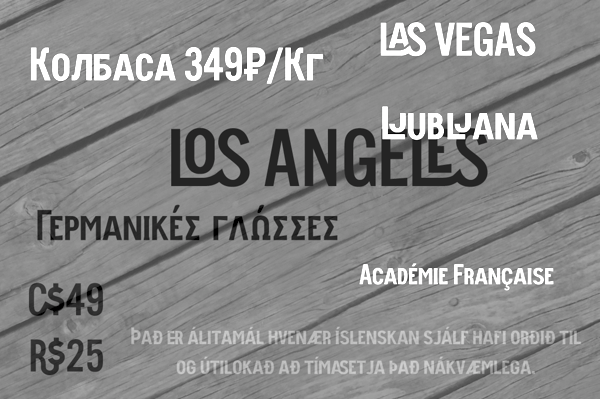
Cyrillic type design
[Image of Yuri Gordon, one of Russia's most important contemporary type designers. This page covers Cyrillic type design in general.]
10four design
[Matt Heximer]
10four design group was founded in 2002 by Sue Lepard and Matt Heximer in Vancouver. Matt Heximer and Sue both graduated from The Emily Carr Institute of Art and Design in 1994. Matt has held senior design and freelance positions in several Vancouver design firms.
Designer of ElDiabloRegular, TechnoOrganic (1996), Swashbuckler-Script (1996), BitchinCamero (1996) at Garagefonts. He also created Halqemeylem Serif (1997) for the Stolo Nation, based on Majoor's Scala. The fonts at 10four design include Adanac (free, clean sans), Bitchin' Camaro (scratchy writing font), Devicq (based on the handwriting of actress Paula Devicq), Downsize, El Diablo (gothic), Lonely Cowboy, Lonely Cowpoke (2010), Mia Pets (dingbats), Swashbuckler, Techno Organic.
In 2007, Matt published the free icon typeface Adanac that contains 62 Canadiana symbols.
In 2014, Heximer created Sonovovitch, a unicase display typeface inspired by the Russian Constructivist movement and Soviet Cold War era propaganda. Although a faux Russian font, Sonovovitch has language support for the true Cyrillic alphabet.
In 2016, Matt published the angular Preissig-style Millwright and explains that it is inspired by spunky DIY attitude and Industrial era hardware---an exercise in rendering glyphs with a rudimentary, hand-cut flavour. Behance link. FontShop link. Creative Market link. Klingspor link. [Google] [MyFonts] [More]  ⦿
110design
[Alexei Vanyashin]
Russian graphic and web design studio in Moscow, run by Alexei Vanyashin, Fedor Balashov and Kate Semenova. Alexei Vanyashin studied typography at Stroganov University under Dmitry Kirsanov from 2002 until 2003. He graduated in graphic design from the Institute of Design in Moscow in 2008. In 2009-2010, he worked on the Florian Diploma project at the Type and Typography course at the British Higher School of Art and Design in Moscow under Ilya Ruderman. Florian is a 9-style angular (wedge serif) text family. Florian and Geo Text won First Prize at Granshan 2010 in the Cyrillic text typeface category. Alexei designed the curlified Bodonito Display (2009), Eurotesque, Wire (2009, monoline sans), and ModL (2009). Schmale Antiqua (2010) is a very thin Latin and Cyrillic didone typeface that revives a 19th century typeface widely used for setting book titles. Behance link.
Cofounder in 2011 of Cyreal, a Russian foundry. There, he designed typefaces such as Rationale (2011, with Olexa Volochay and VladimirPavlikov), Vidaloka (2011, a didone done with Olga Karpushina), Alike (2009, with Svetlana Sebyakina), and Adamina (2011, a text typeface for small print: free at OFL). I am not sure if Iceland (2011, Cyreal: free at Google Web Fonts) is also his.
Typefaces made in 2012: Junge (a delicate roman face, free at Google Web Fonts, which was inspired by the calligraphy of Günther Jung), Merge Pro Greek and Cyrillic (codesigned with Kosal Sen, Philatype), Jacques Francois and Jacques Francois Shadow (Cyreal: co-designed with Manvel Shmavonyan, they are revivals of Enschedé No. 811 by J.F. Rosart; free at Google Web Fonts).
Suisse International Condensed Cyrillic won an award at Modern Cyrillic 2014.
Sumana (2015, free at Google Web Fonts, and published by Cyreal) is a family of Latin and Devanagari fonts for text setting and web usage. The Latin counterpart is derived from Lora by Olga Karpushina, Cyreal. Its vertical and horizontal metrics are adjusted to better match with the Devanagari. [Google] [MyFonts] [More]  ⦿
1919 Type Foundry
[Scott Sullivan]
1919 Type Foundry presents the typographic work of Scott Sullivan, who is currently a graphic design major at Ohio University in Athens, Ohio, scheduled to graduate in 2009. About the name: The year 1919 was the year that the Bauhaus school opened in Weimar, Germany. It was roughly the year 1919 when Modernism and Constructivism were born in Germany and the U.S.S.R., respectively. All fonts are heavily based in geometry, therefore: Dosim OKT, Geovlad (2009, constructivist, based on the posters of Georgii and Vladimir Stenberg), 44X34X (2009, futuristic, free). The Triflig Paradigm is another project of his. There he is developing some fonts such as Moon Man, and one can download Gnashraw-Spaced (2009) and two of his FontStruct (pixel) fonts, pgdm001 and pgdm002 (2009). Designmoo link. [Google] [More]  ⦿
195.206.35.44
Neat archive, mostly consisting of Paul J. Lloyd fonts, plus about 300 Cyrillic truetype fonts. [Google] [More]  ⦿
22 Soft
Designers of Cyrillic fonts including New York Plain. [Google] [More]  ⦿
38 Lineart Studio (or: Grayscale, or: Fontsources)
[Muhammad Ridha Agusni]
Architect and designer in Banda Aceh, Indonesia, b. 1980, who set up Grayscale, then 38 Lineart, and finally Fontsources.
In 2018, he released the hexagonally-patterned color font Space, the nervous monoline display typeface Barcelona, the monoline script Brandy, the tattoo and metal band blackletter font Amstha, Twinkle (hexagonal texture), Premium Quality, Hightide (signage script), Ashley Pages, Bold Grunge (a wood style Western font), Rabbit House, Strongbold (brush style), Onthel (a rhythmic signage script), Cafeine, Seulanga (calligraphic), Sweet Bubble, Downhill, Architecture (technical writing font), Wisethink (rough brush), Emerald, Ghotic, Oakland (signage script), Parthenon (signage script), Strawberry Night (script), the formal calligraphic font Beauty Athena, the inline font Epicentrum, and the signature font Attitude in 2018.
Typefaces from 2019: Ghoust (a marker font done at Cititype), Diamant Handwriting (a signature font), Utrecht (with Siti Saribanon Nurjannah), Exhibitionist (a fine rhythmic script), Holimount, Prague Metronome (a thin signature script), Allegroost (a brush typeface), Anisha (script), Kyoto Northern, ChiQuel (a Victorian display typeface that can be layered), Hillstone (a dry brush script), Malique, Ginchiest (a retro signage script), Kid Knowledge, Haghia, Khatija Calligraphy, Bernound, Graffity, Brandy Script (monoline), Downhill, Concept (sketched, blueprint font), Konya (signature script), Blacksmith, Curve Calibration (condensed sans).
Moscow-based designer of the vernacular Latin / Cyrillic typeface Lingo Way (2016). [Google] [More]  ⦿
Aleksey Maslov
Russian codesigner (with Ivan Gladkikh and Alexandr Kalachëv) of Days and Days One (2009, a display sans face), and with Jovanny Lemonad of Metro (2009, constructivist) and Stalin One (2012, constructivist face, free at Google Web Fonts). Behance link. Typetype link. [Google] [More]  ⦿
Aleksey Mednov
Russian designer of the old Slavonic-inspired display typeface Kramola (2015, Latin and Cyrillic). [Google] [More]  ⦿
Aleksey Nelubov